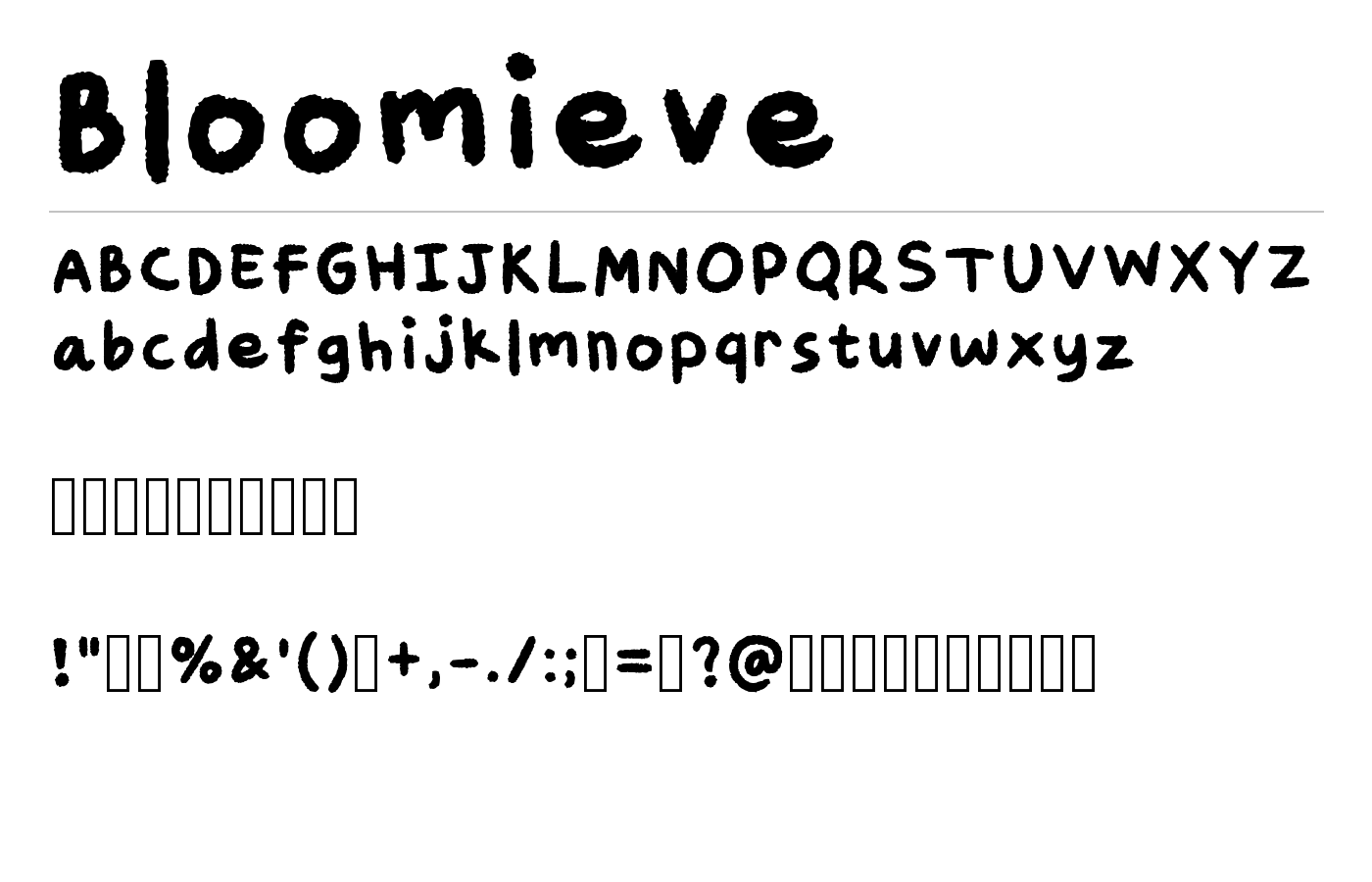
Bloomieve is a friendly, casual sans serif font with a hand-drawn texture that gives it a warm and approachable feel. Its rounded letterforms and slightly irregular strokes make it ideal for projects that want to convey playfulness and authenticity, such as children's books, informal branding, or creative packaging. This font works best in headlines or short texts where a personal, handcrafted touch is desired.
Bloomieve Font
About Bloomieve Font